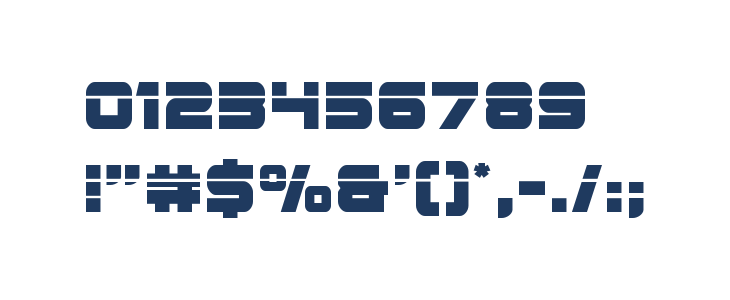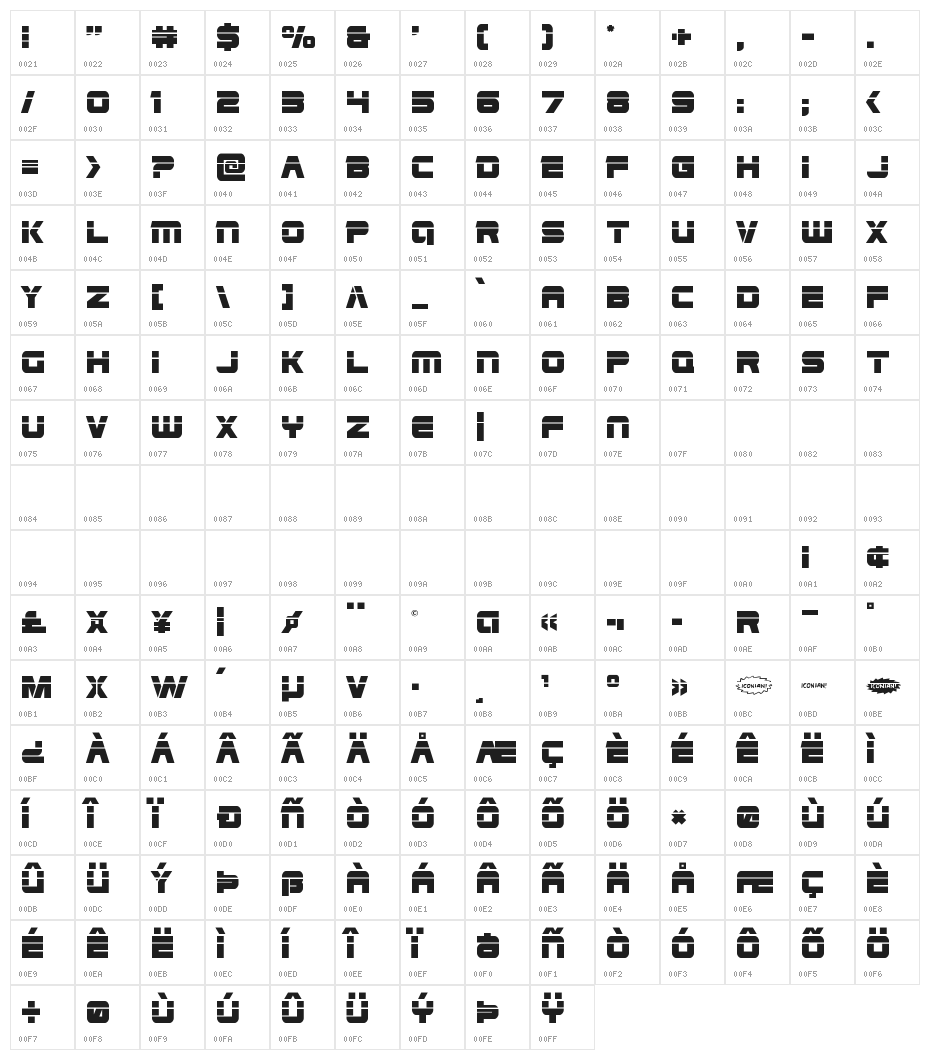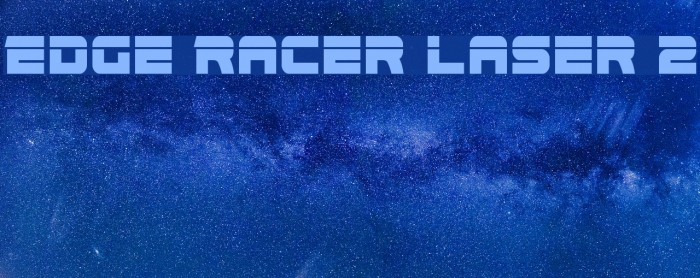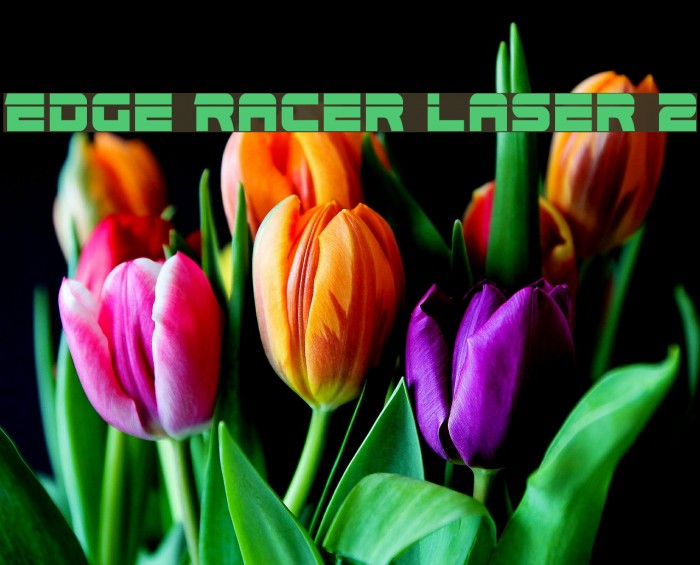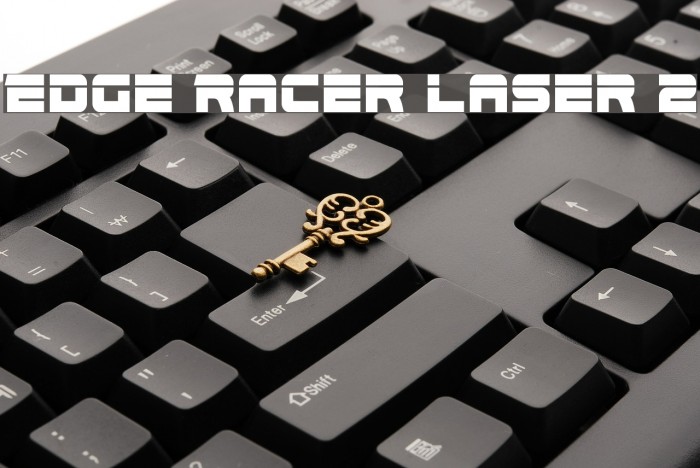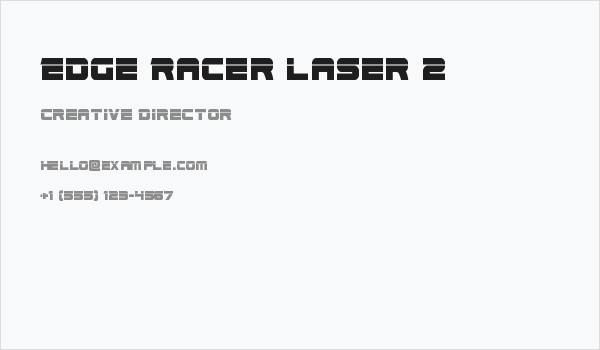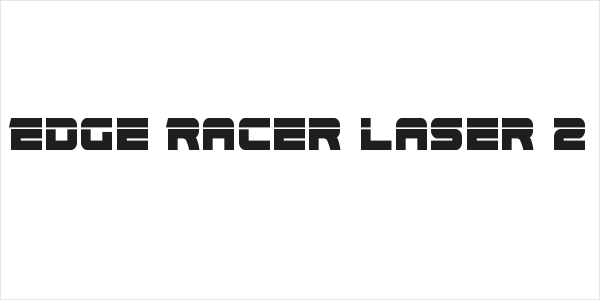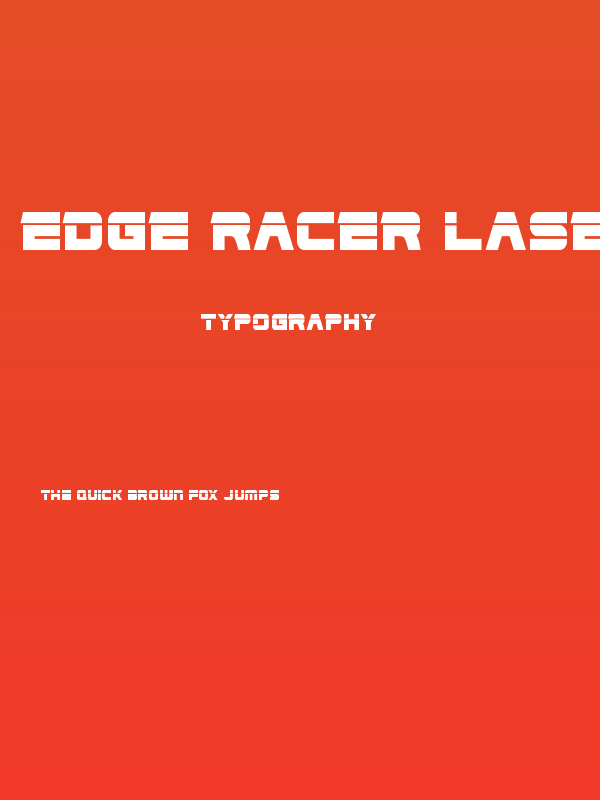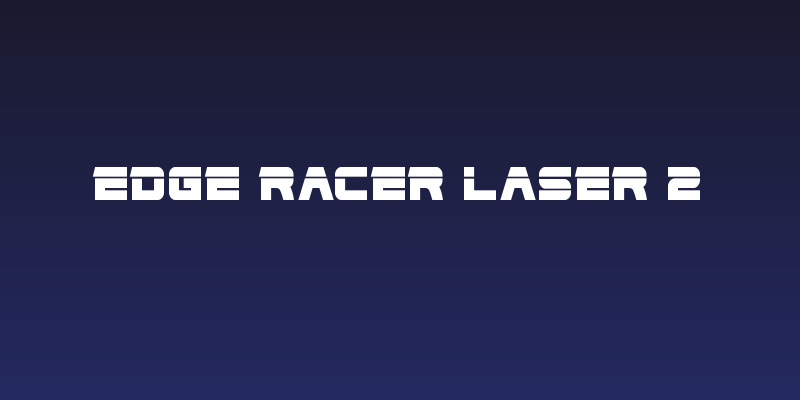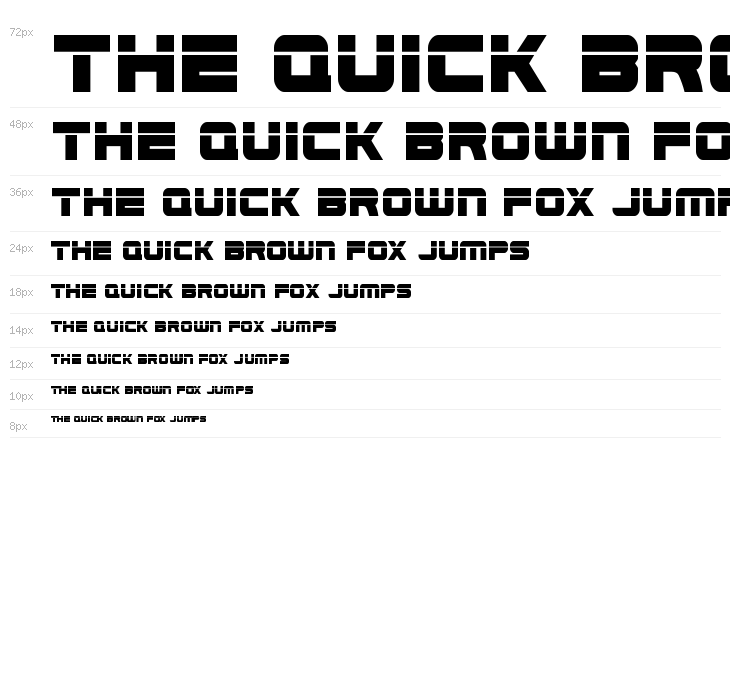
Edge Racer Laser 2 Font
Edge Racer Laser 2 Description
This font features a bold and futuristic design with a strong geometric structure. The characters are wide and blocky, with sharp angles and a consistent stroke width that gives it a robust appearance. The uppercase and lowercase letters maintain a uniform style, enhancing its cohesive look. The numerals and special characters follow the same design principles, ensuring a seamless integration across all text elements. Its distinct style is reminiscent of digital or technological themes, making it ideal for projects that require a modern and edgy aesthetic.